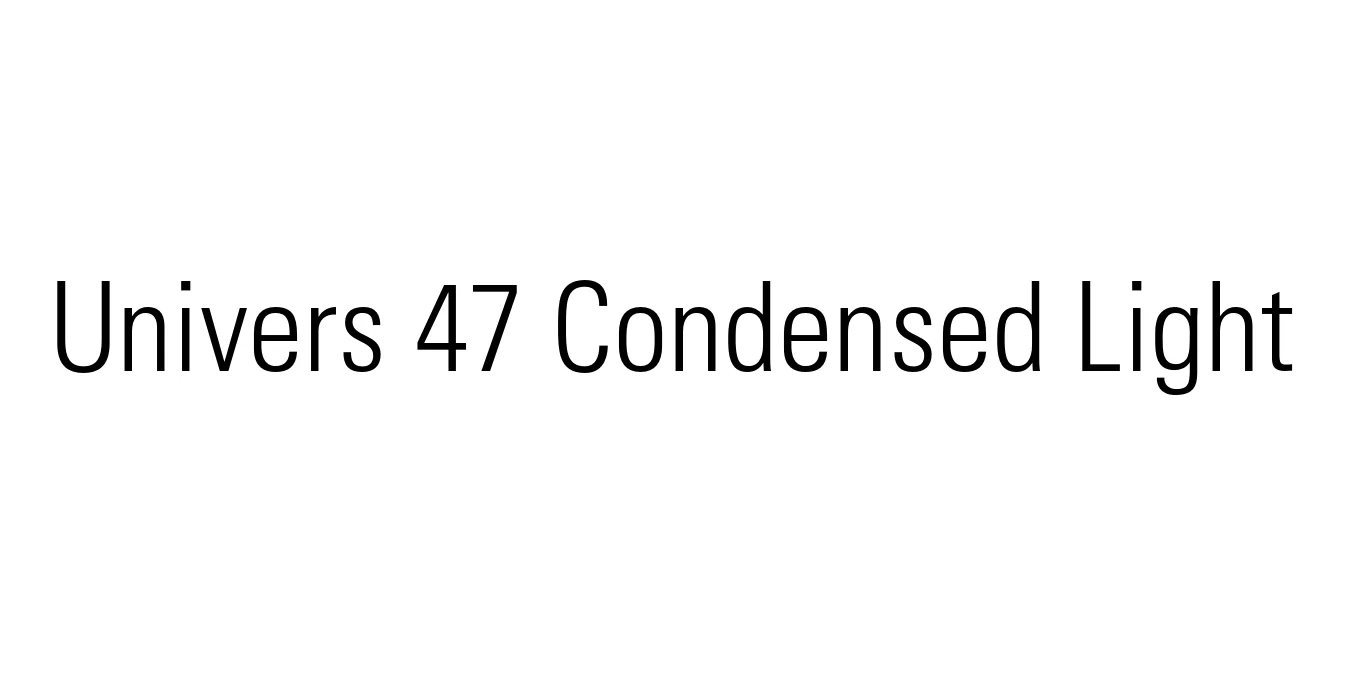
Univers 47 Condensed Light
Designed by Adrian Frutiger
Univers is a neo-grotesque sans-serif typeface designed by Adrian Frutiger in 1957. It was one of the first typeface families to be designed as a cohesive system from its inception, utilizing a numerical naming convention to distinguish weights and widths. The Univers 47 Condensed Light variant represents a refined, narrow execution of the classic design, offering high legibility and a sophisticated aesthetic that revolutionized modern typography during the mid-20th century.
The font is characterized by its clean lines and lack of decorative flourishes, making it a staple in the International Typographic Style. It was originally released by Deberny & Peignot and later became a cornerstone of the Linotype library. Because of its mathematical precision and neutral character, it is widely used in corporate identities, signage systems, and technical documentation where space efficiency and clarity are paramount.
Univers 47 Condensed Light Best Uses
Perfect for dense text layouts and headlines where space is limited.
Ideal for professional branding and sophisticated logo design.
Excellent for wayfinding systems due to its high legibility and narrow width.
Great for navigation bars and sidebars in modern web interfaces.